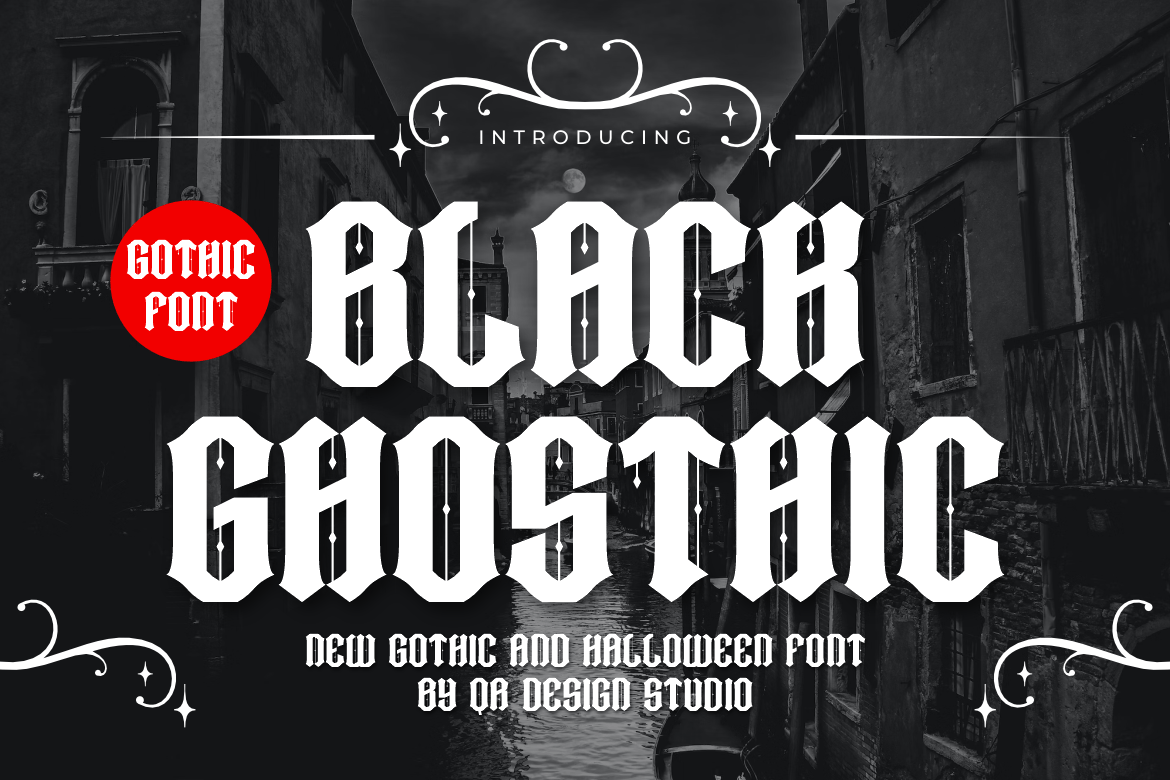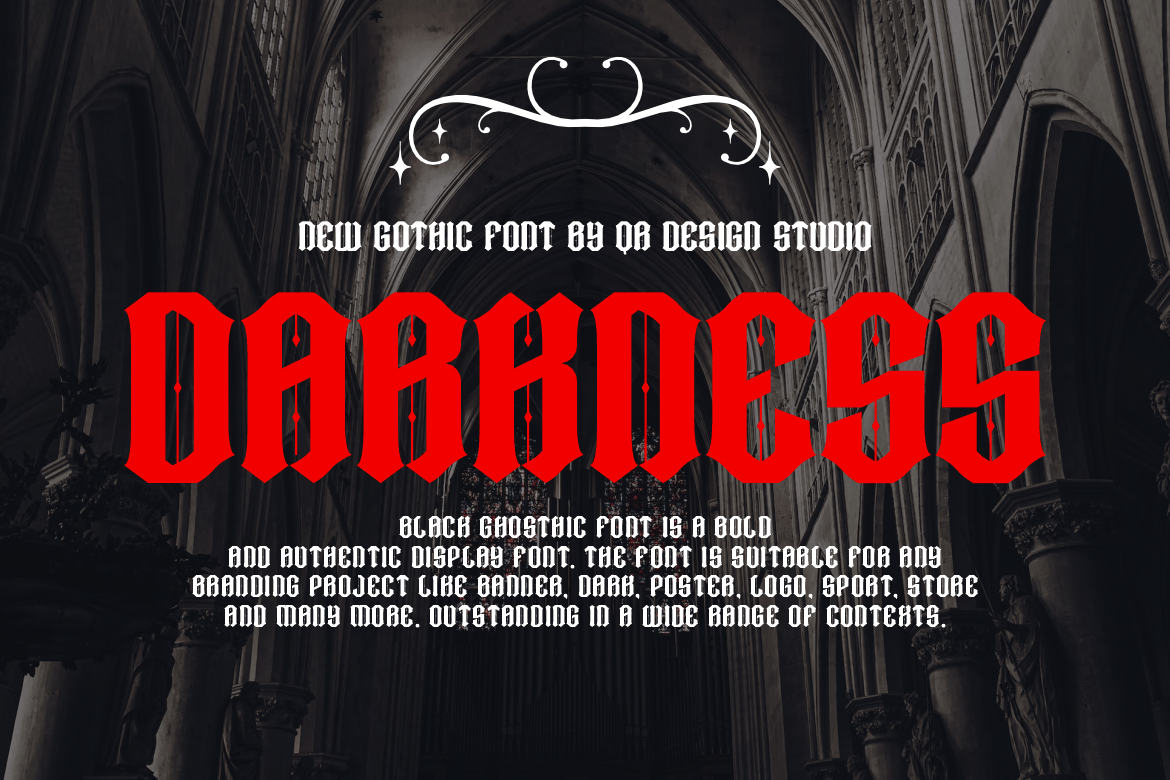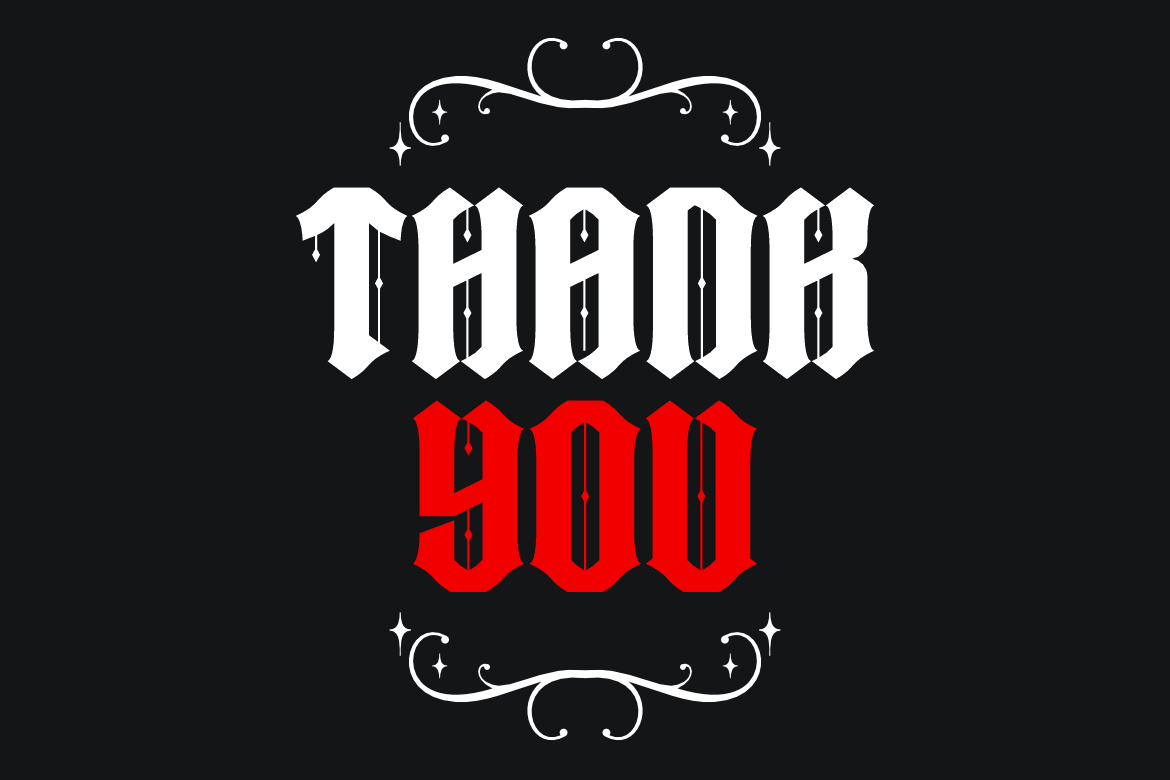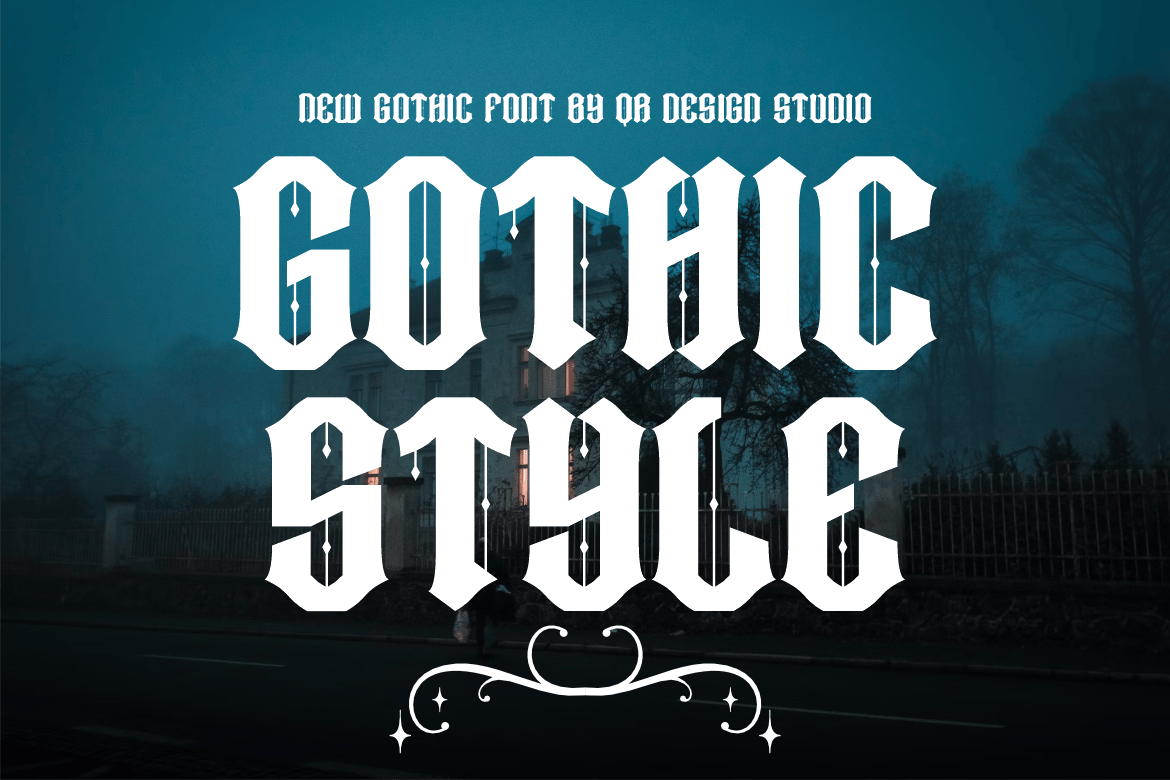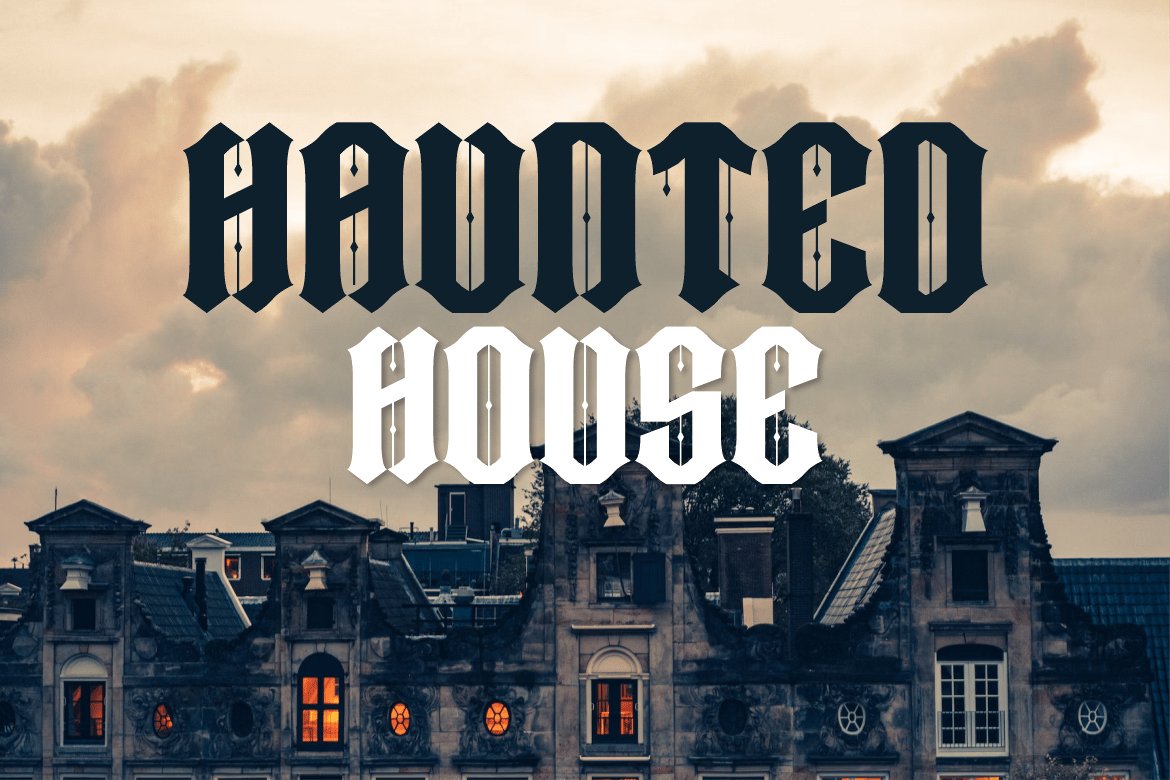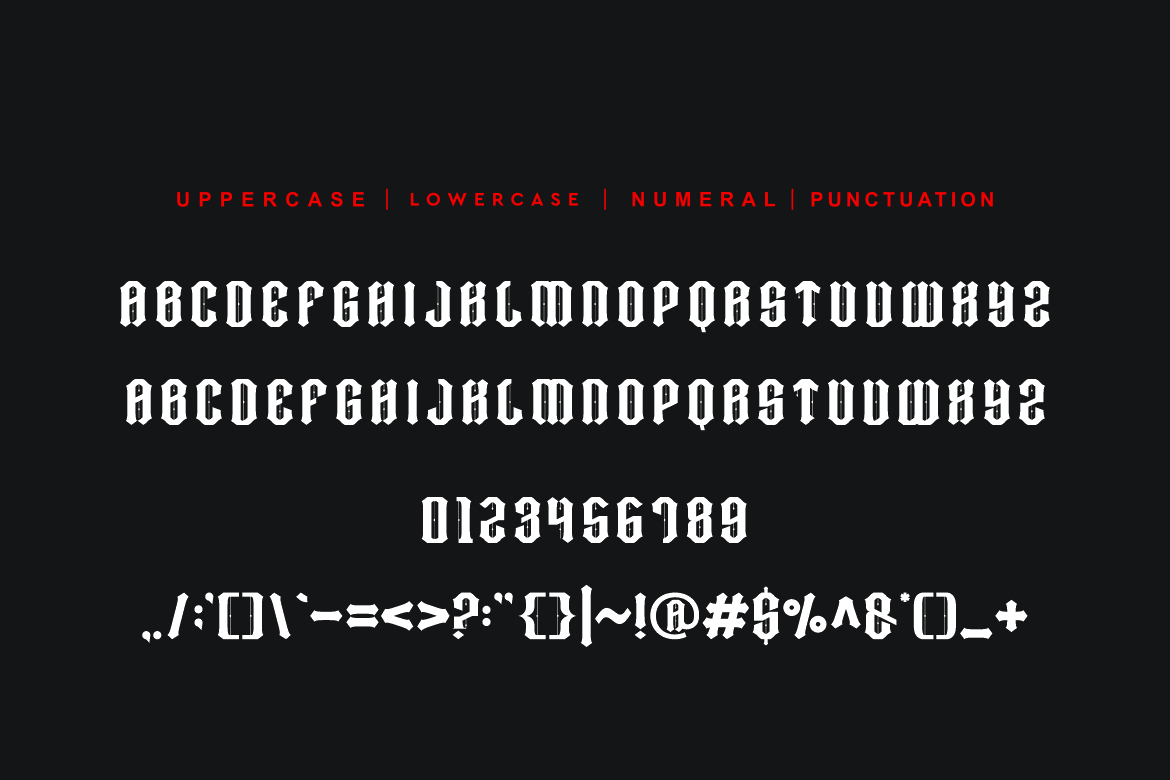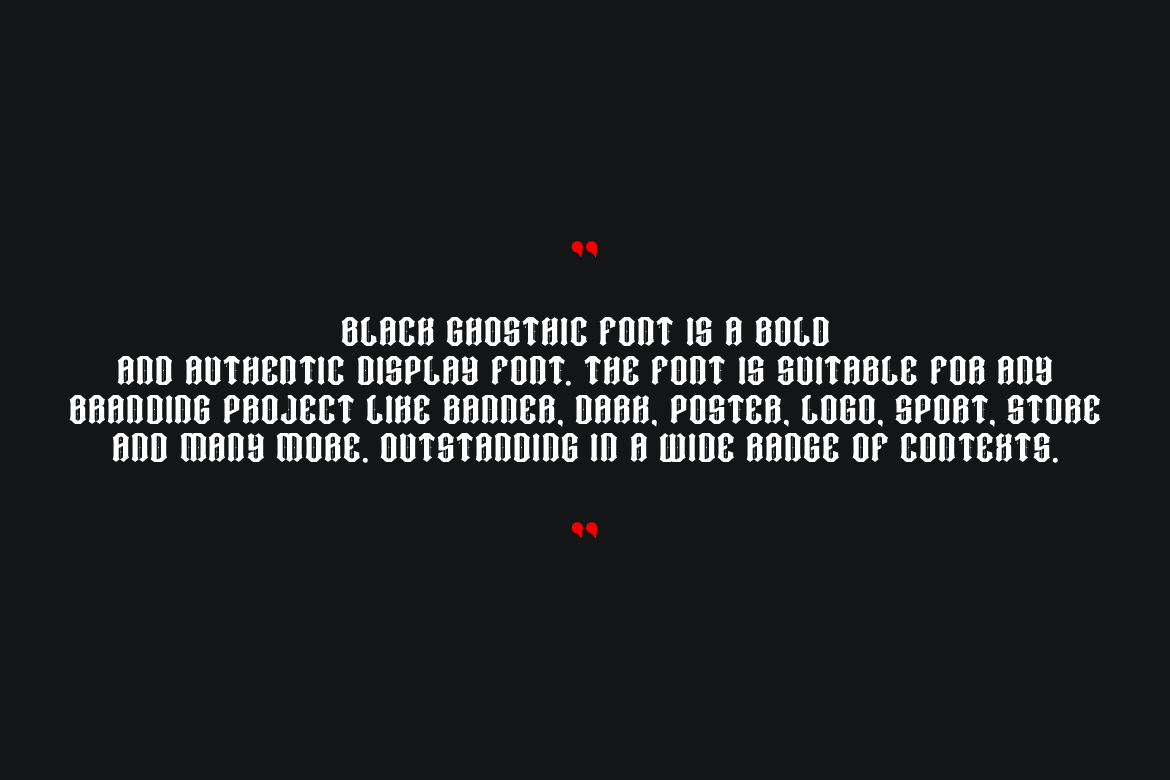
Black Ghosthic Font
Black Ghosthic Font is a bold and authentic display font. The font is suitable for any branding project like logo, halloween, dark, gothic, metal, food, poster, kids, sport, and many more. Outstanding in a wide range of contexts.